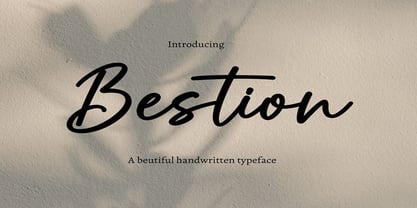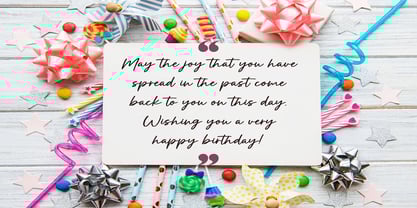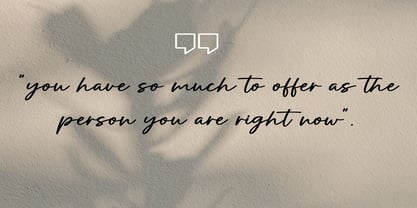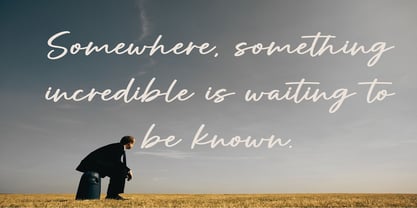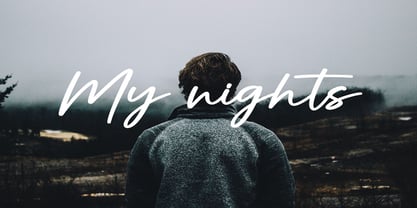
Bestion
by Dream Font
The Bestion Font Family was designed by Max R. Kaufmann and published by Dream Font. Bestion contains 1 styles. More about this family
Bastion Font is a handwritten script font that brings the warmth and authenticity of hand-drawn lettering to your digital and print projects. This font captures the subtle nuances of a real pencil sketch. Perfect for creating a genuine, personal touch in branding, invitations, social media graphics, and more.
Bastion Font is packed with everything you need, including uppercase and lowercase letters, numbers, and punctuation. Multilingual support.
Bestion